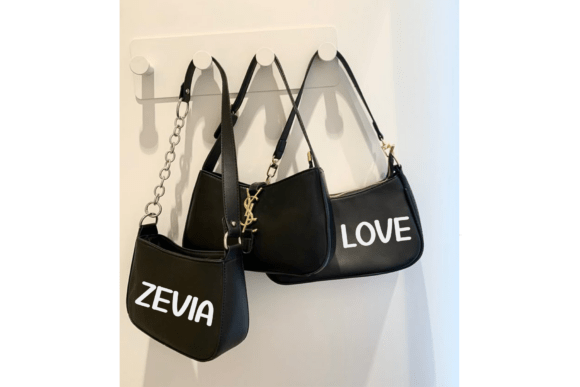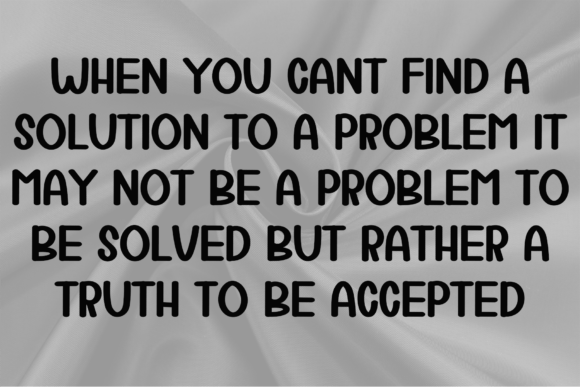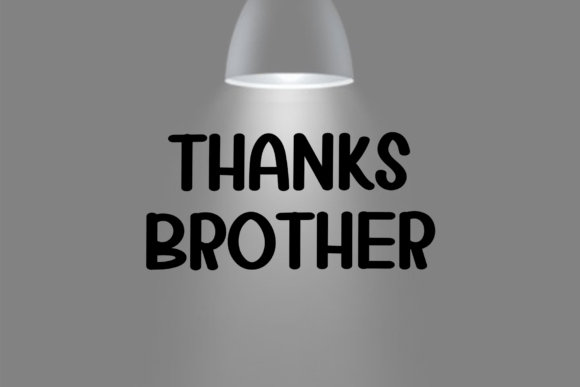
Have you ever been in the middle of a creative brainstorming session, pouring over ideas and inspiration, only to hit a roadblock and feel like your design is missing that special something? You know, that extra oomph that takes it from good to great? Well, I’ve got some good news for you – I’ve found a font that might just be the missing piece you’ve been searching for.
Enter the Black Varsity Font, a sleek and modern sans-serif typeface that’s perfect for designers looking to add a touch of sophistication to their projects. Whether you’re working on a logo, a brochure, or a website, this font is sure to make a statement. Its clean lines and minimalist aesthetic make it incredibly versatile, allowing it to seamlessly integrate into a wide range of design styles.
Black Varsity Font Key Features
• Unique Characteristics: Distinctive, bold, and modern aesthetic with a strong, confident feel
• Font Style: Sans-serif, with a geometric and structural design
• Language Support: Supports a wide range of languages, including Latin, Cyrillic, and Greek alphabets
Designer Review: Black Varsity Font
Overall, the Black Varsity Font is a decent sans-serif typeface that gets the job done. ✨ Its clean lines and geometric shapes give it a modern feel that’s perfect for sports, action, and casual designs.
Here are some of its strengths:
• ✨ High legibility: The font is easy to read, even at small sizes, making it suitable for body text and headlines.
• ✨ Versatility: Black Varsity Font works well in various contexts, from digital displays to print materials.
• ✨ Neutral tone: The font’s dark color palette and sans-serif design make it a great choice for designs that need a subtle yet bold look.
• ⚠️ Limited expressiveness: The font’s clean design may make it less expressive and less suitable for designs that require a lot of personality.
• ⚠️ Not ideal for fine typography: Black Varsity Font’s geometric shapes can make it difficult to achieve fine typography and nuanced text arrangements.
Overall, the Black Varsity Font is a solid choice for designers who need a clean and modern sans-serif typeface. While it may not be the most expressive or nuanced font, it gets the job done and is easy to work with.
Black Varsity Font Practical Application Guide
Tips for Getting the Most Out of Black Varsity Font
Black Varsity Font is best used for titles, headings, and emphasis. Use it sparingly to create a bold and eye-catching visual effect. Experiment with different font sizes and combinations to find the perfect balance for your design.
Black Varsity Font is commonly used in sports branding, fashion design, and graphic design projects. It’s a popular choice for creating bold, modern, and ed
Alternatives to Black Varsity Font for Designers
Arial Black is a sans-serif font that is often used as a substitute for Black Varsity Font. It has a similar feel and is suitable for headings and titles. It is a good choice when you want a clean and modern look. However, it may not be as bold as Black Varsity Font in certain font sizes.
Impact is a sans-serif font that is known for its bold and dramatic feel. It is often used in headings and titles where you want to make a statement. While it may be too bold for some uses, it can be a good alternative to Black Varsity Font when you want to add emphasis. However, it may not be as versatile as Black Varsity Font in different font sizes.
What are the technical details of the Black Varsity Font?
The Black Varsity Font is a TrueType font, which supports various font sizes and styles. It has a x-height of 0.5, a cap height of 1, and a font weight of 700. The font’s metrics and kerning are optimized for clear readability, making it suitable for use in various design applications, including logos, titles, and body text.